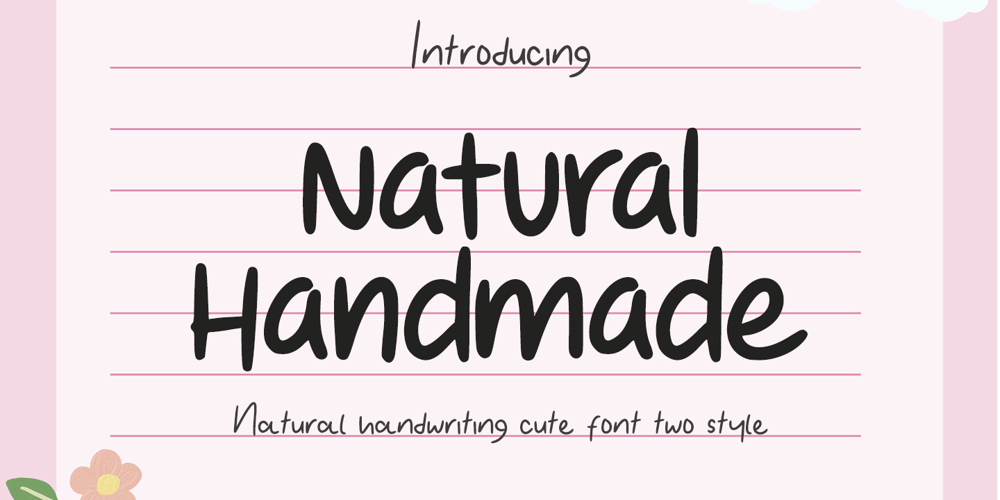
Natural Handmade Font Family was designed by Muhammad Zaini and published by Cocodesign. Natural Handmade contains 2 styles and family package options. Introducing “Natural Handmade Font Two Style,” a charming font that mirrors the dynamic uniqueness of human handwriting. Its fluidity and individuality imbue each letter with tremendous character and charm. Displaying elegant curves and subtle strokes, this font injects an intimate touch to your written communications. Whether it’s for jotting down journal entries, crafting notes, or designing striking quote layouts, “Natural Handmade Font Two Style” amplifies your messages with genuine warmth and authenticity. Watch it transform common text into extraordinary typography, infusing your writing with an invigorating breath of life.